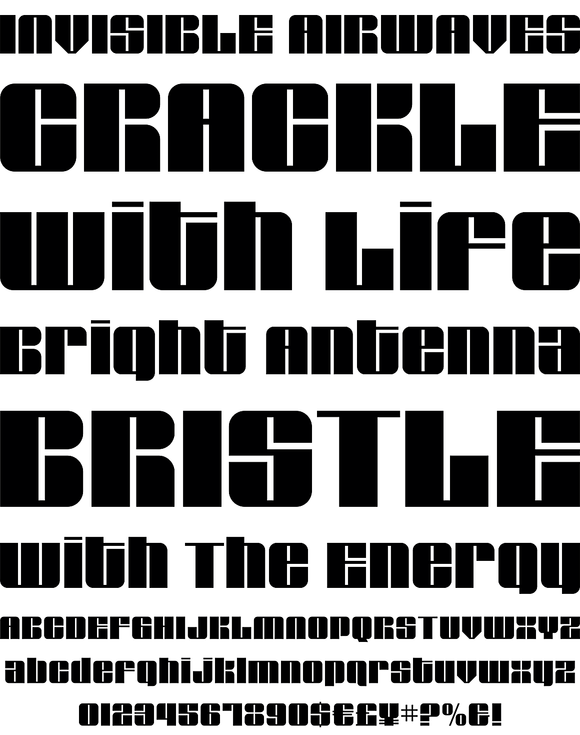
Glyphic Neue Complete
Glyphic Neue was inspired by the Op Art style of lettering in the United States that ran rampant in many photo type houses in the 1960's and 1970's. The Glyphic Series from the Franklin Photolettering group was an influence and spring board for this family of fonts, hence it's name.
But Glyphic Neue departs from its unicase Franklin influence in several ways. Firstly the designer created both upper and lower case forms. The lowercase has been designed with barley protruding ascenders and descenders and with an x-height equivalent to the cap height, so that upper and lower can be exchanged indiscriminately for a quirky effect. Some of the letters take a cue from the original Glyphic series but many have been redesigned entirely to fit the designers vision. The italic forms differ enough from the upright version making it almost an entirely different display alphabet.
Glyphic Neue is a versatile family of 6 fonts - 3 widths, each with an accompanying italic that look equally at home when used on a party flier or a sports team visual identity.